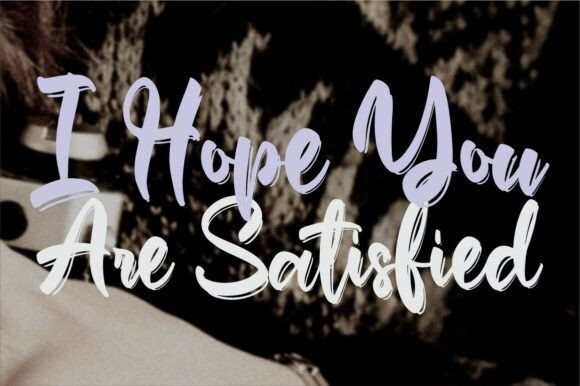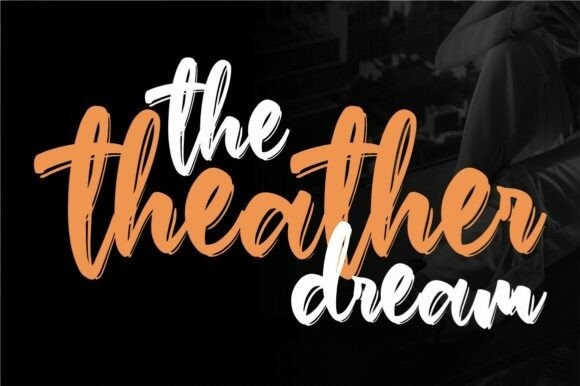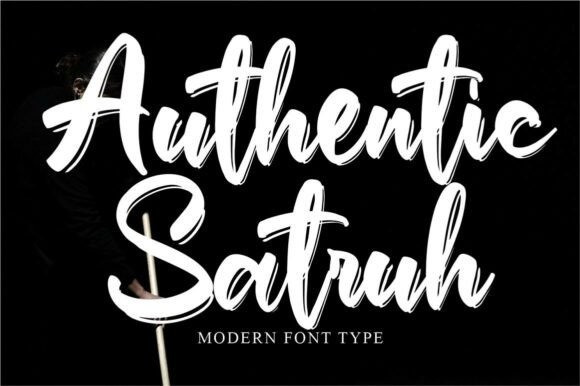
Authentic Satruh Font
Authentic Satruh Font is an expressive handwritten font. With modern pen strokes, fun characters with little ligatures, alternate lowercase, and swashes. To give you more creative work. Authentic Satruh font supports multilingual. This font is good for logo design, social media, movie titles, book titles, short texts even long letter texts and good for your secondary text font with sans or serif.